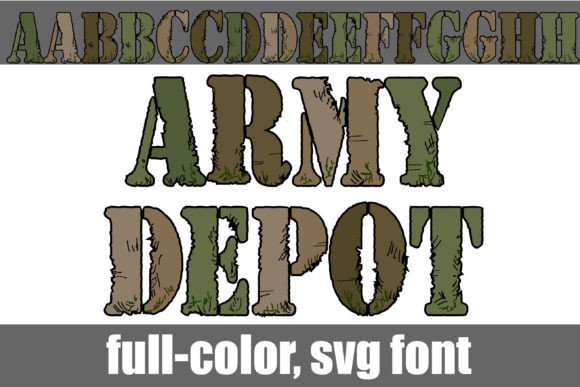
Get ready to embark on an extraordinary design adventure with Army Depot Font, the ultimate game-changer for military enthusiasts and artistic visionaries seeking an authentic and captivating font experience. This stunning full-color font, crafted by the experts at Illustration Ink, redefines creative boundaries with its grungy, stenciled lettering and military-inspired color palette.
Unleash your imagination and explore the boundless possibilities of Army Depot Font. Each character in this remarkable font family comes with an alternative version showcased in a different color, accessible via your system character map. Dive into a world of visual artistry as you bring your designs to life with a symphony of colors.
Indulge in the versatility of Army Depot Font, tailored to suit an array of creative projects. From logos and branding to web design and print, this font adapts effortlessly to your artistic vision. Its vector-based nature grants you the freedom to scale your designs to any dimension without compromising on quality. Experience the brilliance of high-resolution graphics that remain crisp and captivating, regardless of the size.
Embrace the transformative power of full-color SVG fonts and unlock a new level of design finesse. With Army Depot Font, your creations will exude personality, capturing the essence of your brand or design concept. Dive into a spectrum of colors and styles, crafting captivating text logos, intricate illustrations, and everything in between. Let your imagination run wild as you witness the vibrant possibilities unfold before your eyes.
Don't settle for ordinary fonts. Elevate your designs to new heights with Army Depot Font, the ultimate choice for impactful and memorable creations. Experience the fusion of versatility, scalability, high quality, and effortless usability. Join the ranks of creative visionaries who have harnessed the power of Army Depot Font to leave an indelible mark on the world of design.